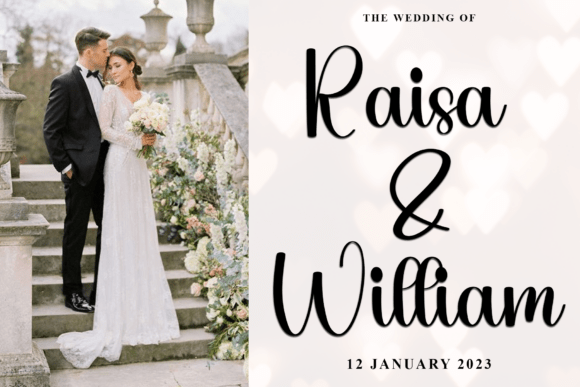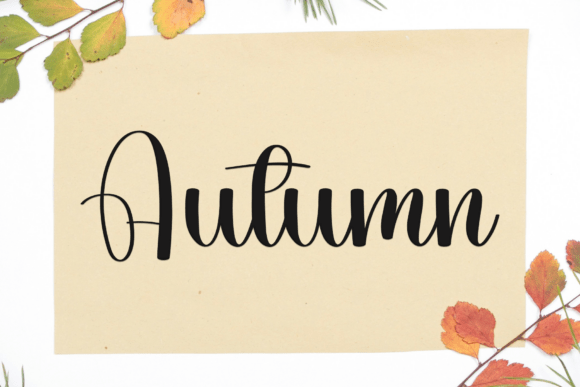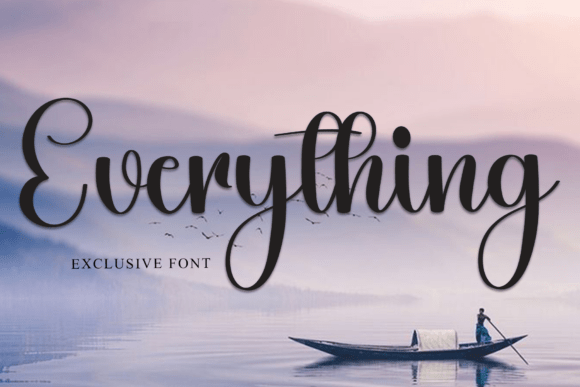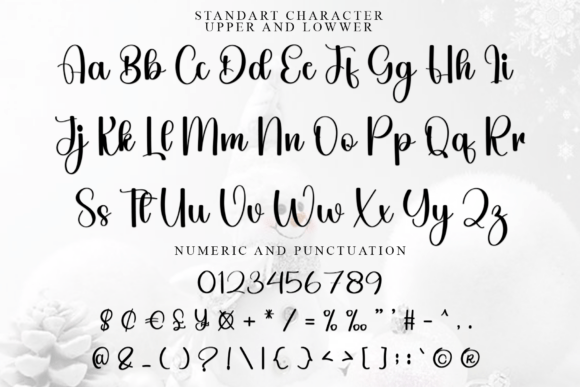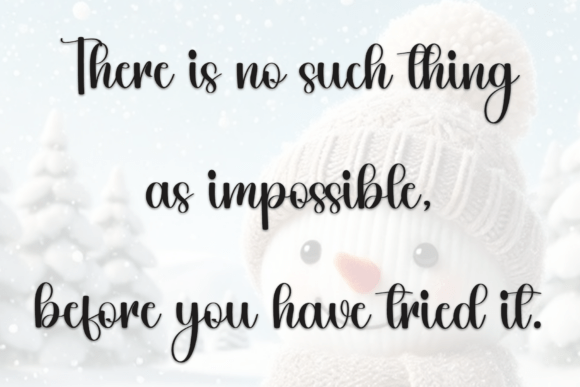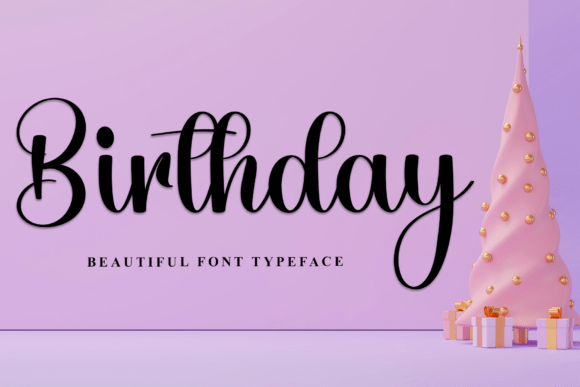
Cataline Signature Font: Elevate Your Designs with a Touch of Elegance
In the world of design, fonts play a crucial role in conveying messages, evoking emotions, and creating lasting impressions. Among the myriad of fonts available, the Cataline Signature Font stands out for its unique blend of softness and distinctiveness. This beautiful font is designed to add a special touch to any design project, making it a versatile and valuable asset for designers and crafters alike.
The Unique Charm of Cataline Signature Font
Cataline Signature is more than just a font; it’s an artistic statement. Its soft, unique touch sets it apart from more traditional fonts, offering a fresh and modern look that’s perfect for a wide range of applications. The distinctive strokes of Cataline Signature give it a special character, making it not only aesthetically pleasing but also highly functional. Whether you’re working on a branding project, crafting beautiful wedding invitations, or designing engaging social media graphics, this font adds a meaningful and versatile element to your work.
One of the key advantages of the Cataline Signature Font is its versatility. It comes with a variety of characters, ensuring that you have ample options to play with in your designs. This extensive character set allows for greater creativity and flexibility, making it easier to tailor your project to your specific needs. From professional documents to creative crafts, Cataline Signature proves to be a reliable and inspiring choice.
Ideal for a Wide Range of Products
The natural style of the Cataline Signature Font makes it an ideal choice for a multitude of products. Whether you’re designing logos, brochures, posters, or digital content, this font enhances your work with its elegant and approachable feel. Its broad applicability also extends to crafts and other creative projects, where the personal touch of a unique font can make all the difference. With Cataline Signature, you can elevate your designs, making them more appealing to a wide audience across different artistic and creative fields.
Enhance Your Designs with Cataline Signature
For designers and crafters looking to infuse their work with a touch of elegance and personality, the Cataline Signature Font is an excellent choice. Its ability to enhance designs while providing a unique and distinctive look is unmatched. By incorporating this font into your projects, you’re not just adding words; you’re creating an experience that resonates with your audience on a deeper level.
In conclusion, the Cataline Signature Font is a valuable addition to any designer’s or crafter’s toolkit. Its unique blend of softness, distinctiveness, and versatility makes it an ideal choice for a wide range of applications. With its seamless compatibility across various platforms and its natural, elegant style, Cataline Signature is poised to elevate your designs and crafts to new heights. Whether you’re a professional designer or a hobbyist crafter, this beautiful font is sure to inspire and enhance your creative work.
With the Cataline Signature Font, the possibilities are endless. We encourage designers and crafters to explore the potential of this remarkable font and experience firsthand how it can transform their designs. Whether you’re aiming for a professional look or a more personal touch, Cataline Signature is your partner in creativity, ready to help you leave a lasting impression on your audience.